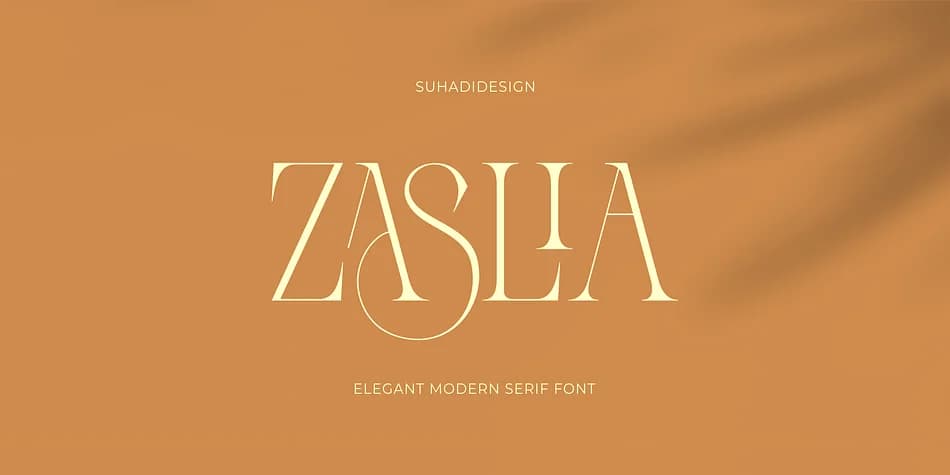
ZASLIA carries refined, classical proportions through its serif letterforms, with generous spacing and elegant ligatures that catch the eye without feeling overwrought. Designed by suhadidesign, this decorative serif works as both a headline font and a supporting player within layout, bringing a touch of sophistication that feels earned rather than forced.
The font shines across a range of luxury applications: high-end beauty product packaging, wedding invitation suites, upscale restaurant menus, and editorial design where restraint matters as much as style. Ligatures add subtle flourish to letter pairs, while multilingual support and a complete character set (uppercase, numerals, punctuation) make it adaptable across different projects and languages. The weight and scale hold steady whether you're working at display size or smaller contexts where letterforms need to maintain clarity.
ZASLIA suits designers building identity systems for boutique brands, creative professionals handling publication layouts, and anyone packaging a product that asks for confidence rather than compromise. The serif works equally well on Etsy product labels, boutique skincare packaging, and social media headers where the letterforms need to stand alone. Find it on Creative Fabrica and add this serif to your working library.
ZASLIA Font is a decorative font that shines as a display or heading face. Pair it with a clean sans-serif or serif font for body text β the contrast creates a clear hierarchy while the two styles stay balanced and easy to read.